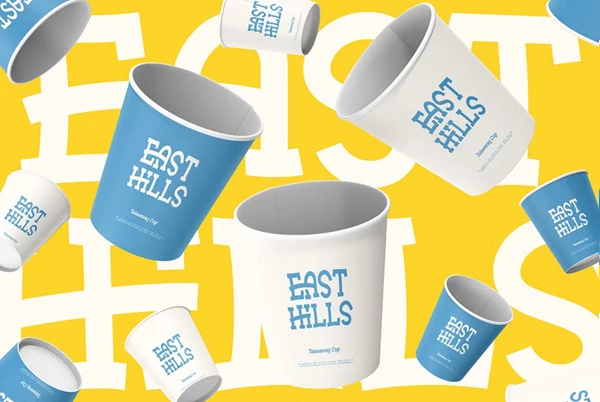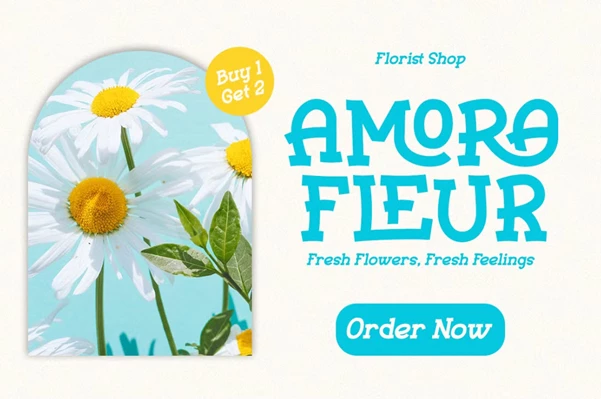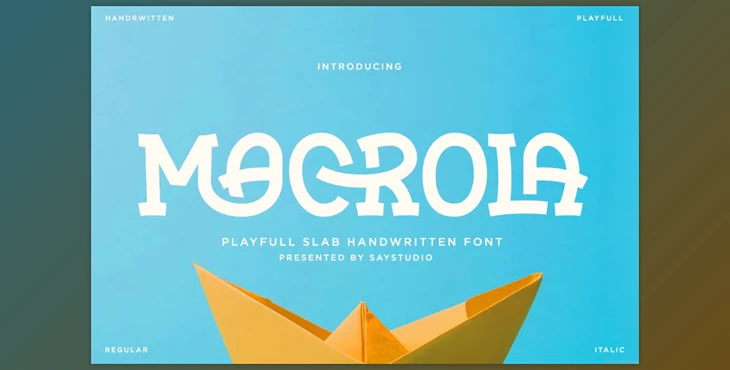
Macrola - Playful Slab Serif Font:
Macrola is a quirky slab serif display font with personality. This bold serif typeface strikes the perfect balance between creativity and legibility, while still being friendly for print and digital projects. Macrola is a quirky yet modern font that provides just the right balance of creativity and legibility while remaining friendly for print and digital projects. Macrola is the perfect font for anyone who wants to bring attention to themselves.
- Added stylistic ligatures.
- Multilingual support.